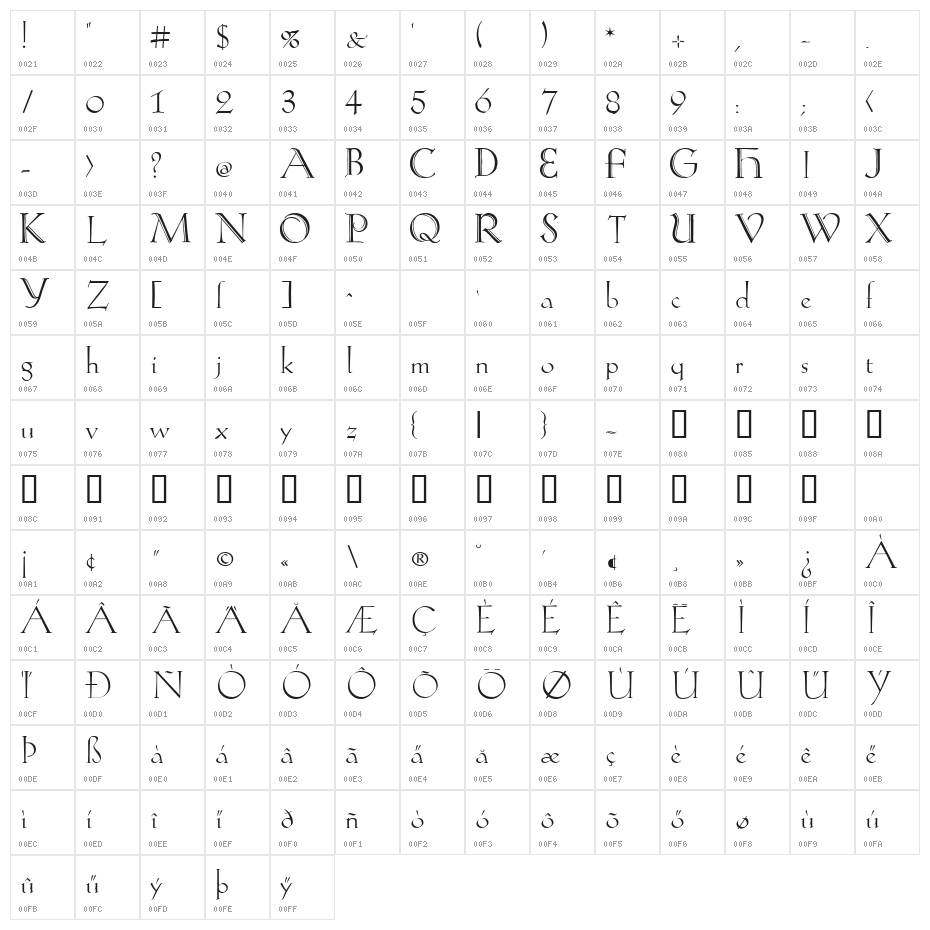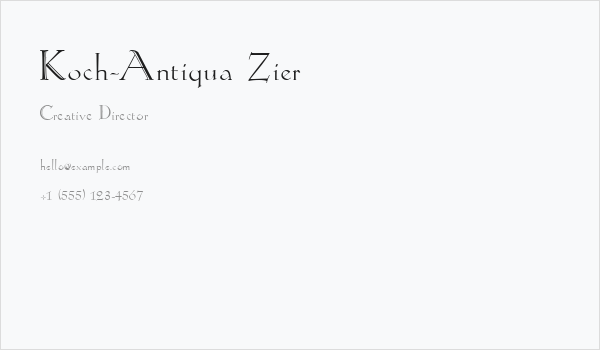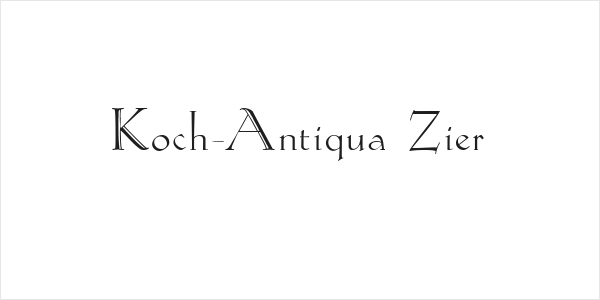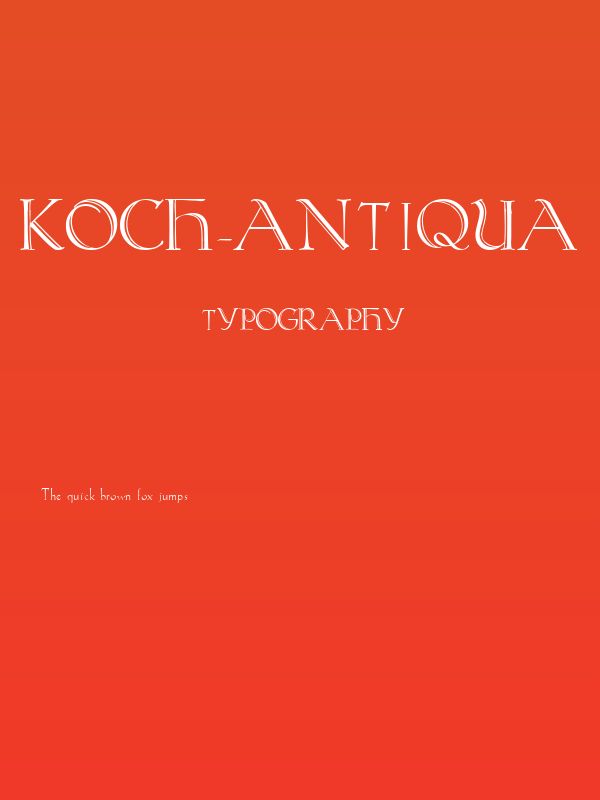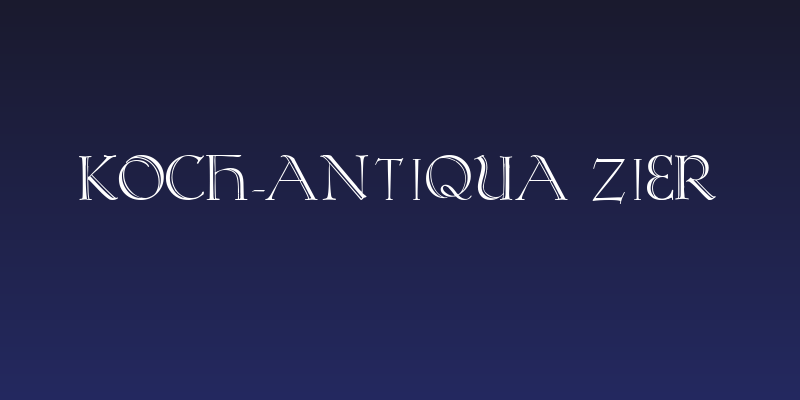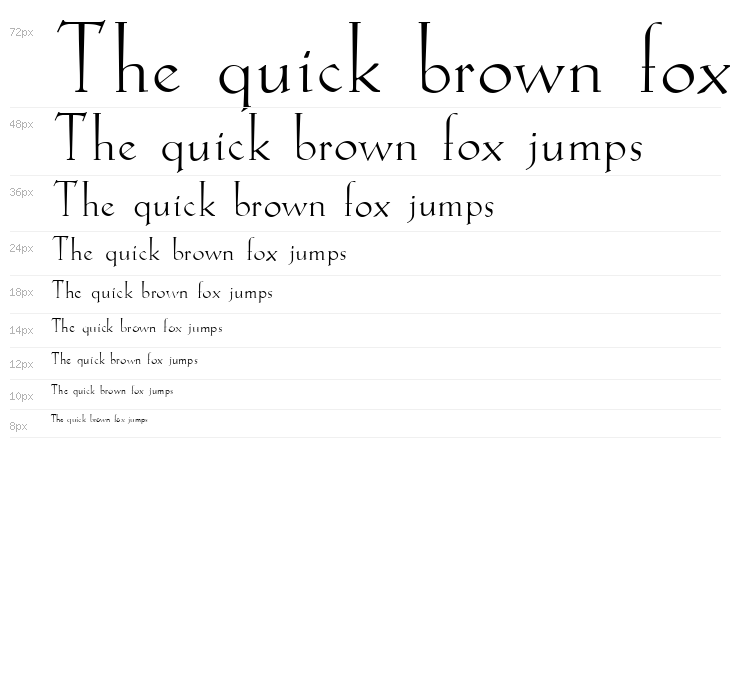
Koch-Antiqua Zier Font
Koch-Antiqua Zier Description
This elegant serif font features a unique blend of classic and decorative elements, characterized by its distinctively sharp serifs and high contrast between thick and thin strokes. The uppercase letters exhibit a formal and sophisticated style, while the lowercase letters maintain a graceful and flowing appearance. The numerals are well-proportioned, complementing the overall aesthetic of the font. Special characters are designed with the same attention to detail, making them suitable for a variety of uses. The font's intricate design and refined details make it ideal for projects that require a touch of elegance and sophistication.
| Overall Style | Classic, Decorative |
| Proposed Projects | Ideal for wedding invitations, luxury branding, editorial design, and high-end product packaging. |